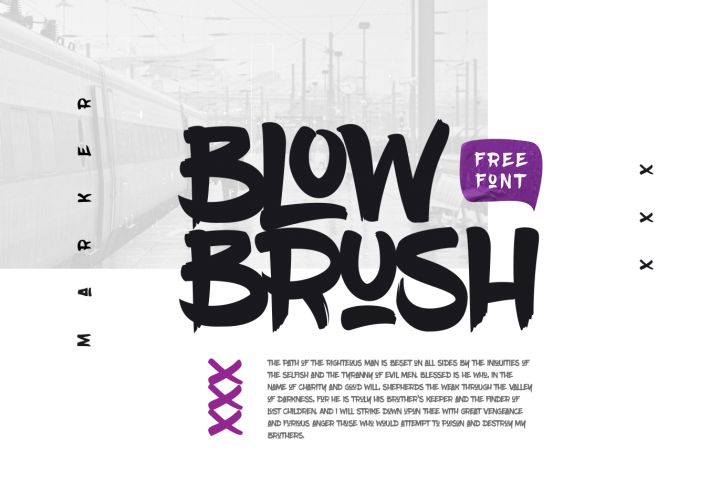
Free Font Blow Brush Typeface
Download and enjoy this free font blow brush typeface. Cool typeface to showcase your designs in a modern way. This free typeface file was found from the amazing source called The Hungry JPEG. Showcase your designs like a graphic design pro by adding a new touch with this beautiful font.